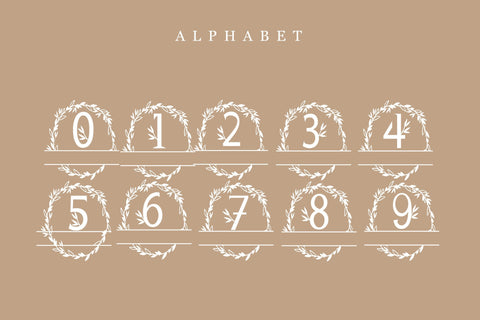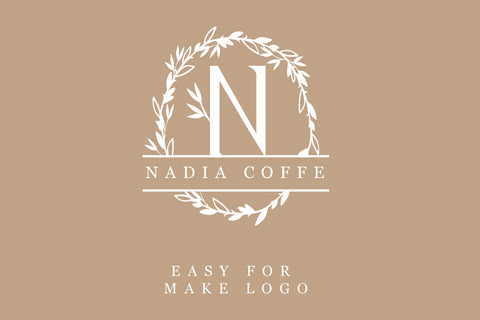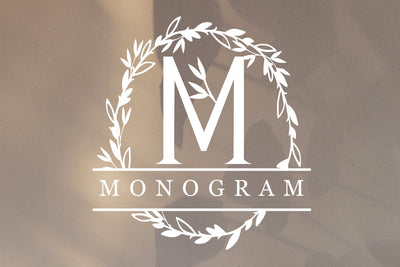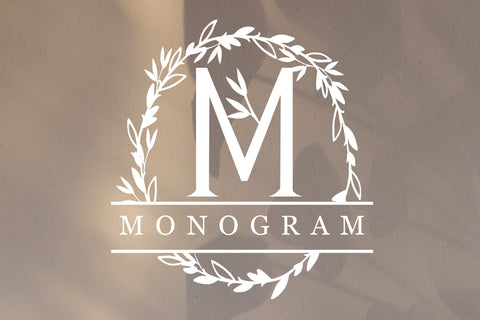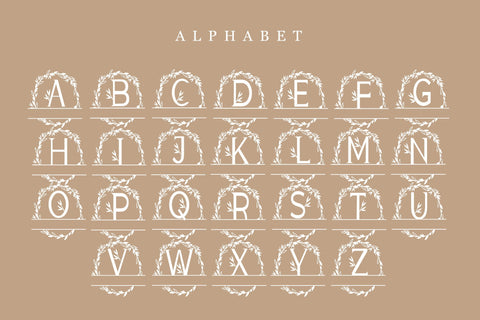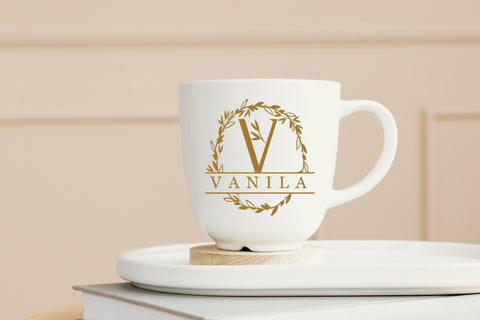
Monogram Wreath Floral
MONOGRAM WREATH FLORAl FONT is a pretty and beautiful with a circle of leaves surrounding it, this font is perfect for logo, branding, crafting, social media post, eye-catching, business cards and other creative projects. different and beautiful to the eye